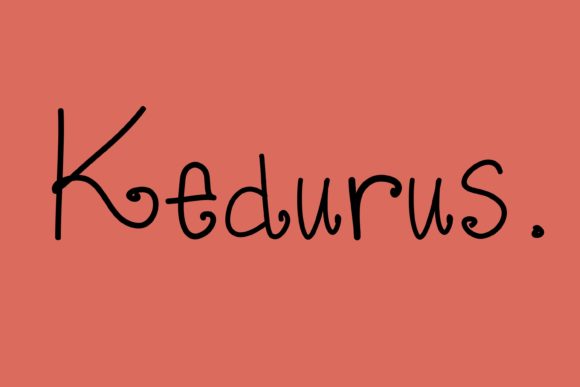
Immerse yourself in the beauty of Kedurus Font, a handwritten masterpiece crafted by DigiArd. As you glide through the letters of this elegant script font, you'll be captivated by its delicate strokes and enchanting style. Kedurus isn't just a font; it's an art form, inviting you to infuse your designs with a touch of grace and sophistication.
Whether you're a seasoned designer or just starting, Kedurus Font is your perfect companion. Its user-friendly nature welcomes you to explore your creativity without limits. Bask in the versatility of this font, seamlessly blending into any project, from wedding invitations to branding designs.
Picture your words dancing across the page, adorned with the exquisite curves and sweeping lines of Kedurus. Your designs will transform into enchanting tales, captivating your audience with their timeless charm. Unleash your imagination and let Kedurus elevate your designs to breathtaking heights.
With Kedurus Font, you'll discover a world of possibilities. Dive into a collection of elegantly crafted characters, each meticulously designed to evoke emotion and captivate hearts. Fall in love with the intricate details that bring life to your words, transforming them into stunning visual masterpieces.
Step into the realm of eloquence and let Kedurus Font guide you. Allow your words to flow with effortless grace, leaving an indelible mark on all who encounter them. Embrace the beauty of handwritten artistry and watch as your designs blossom into captivating expressions of elegance.